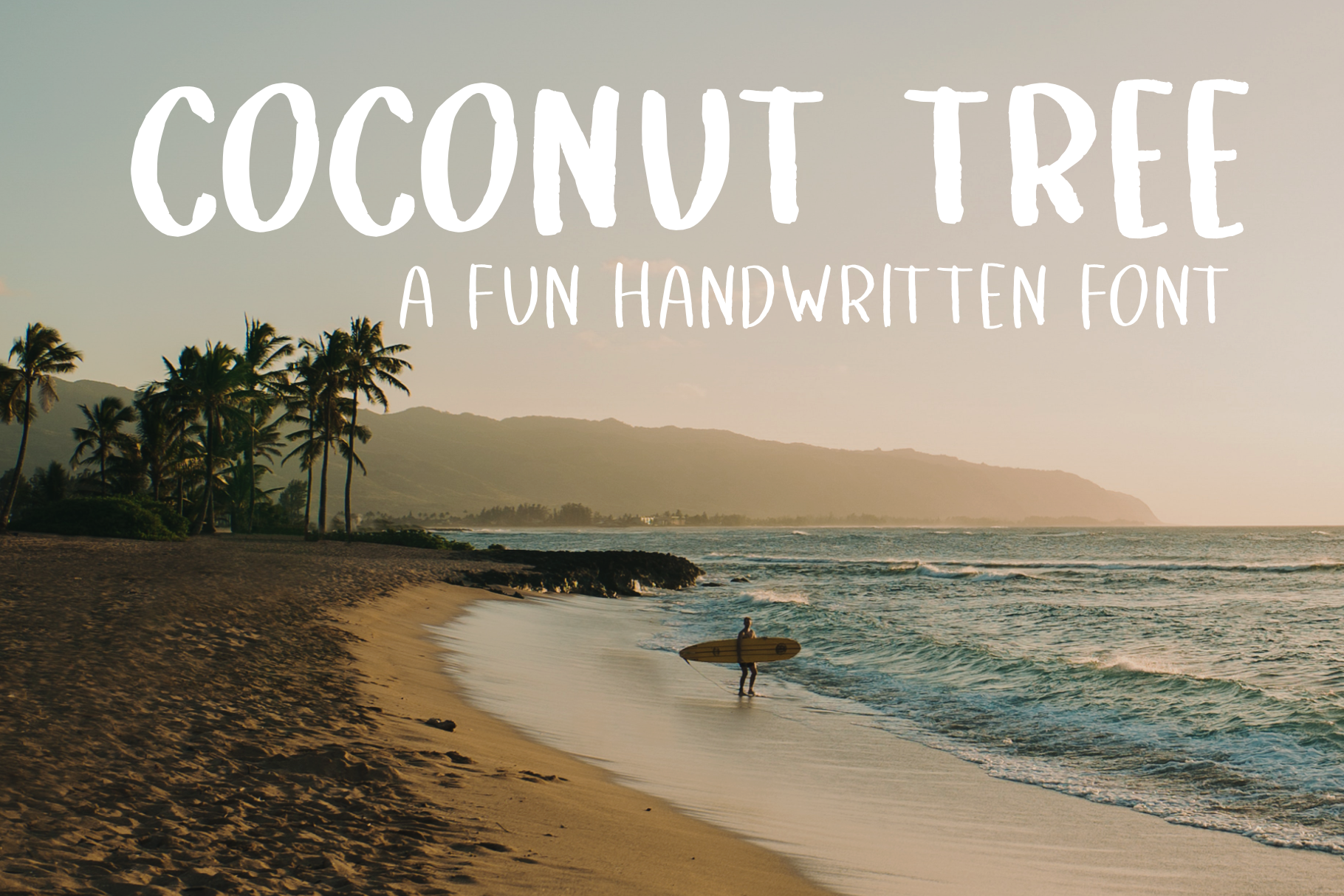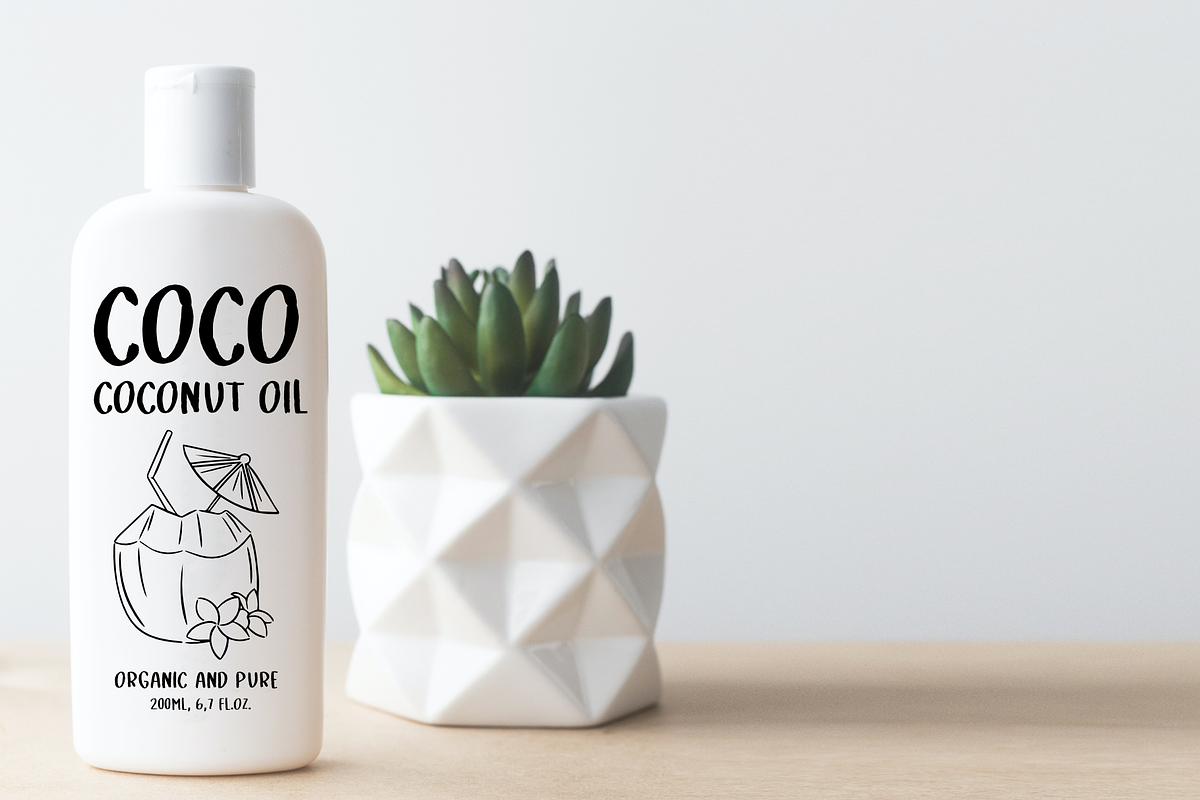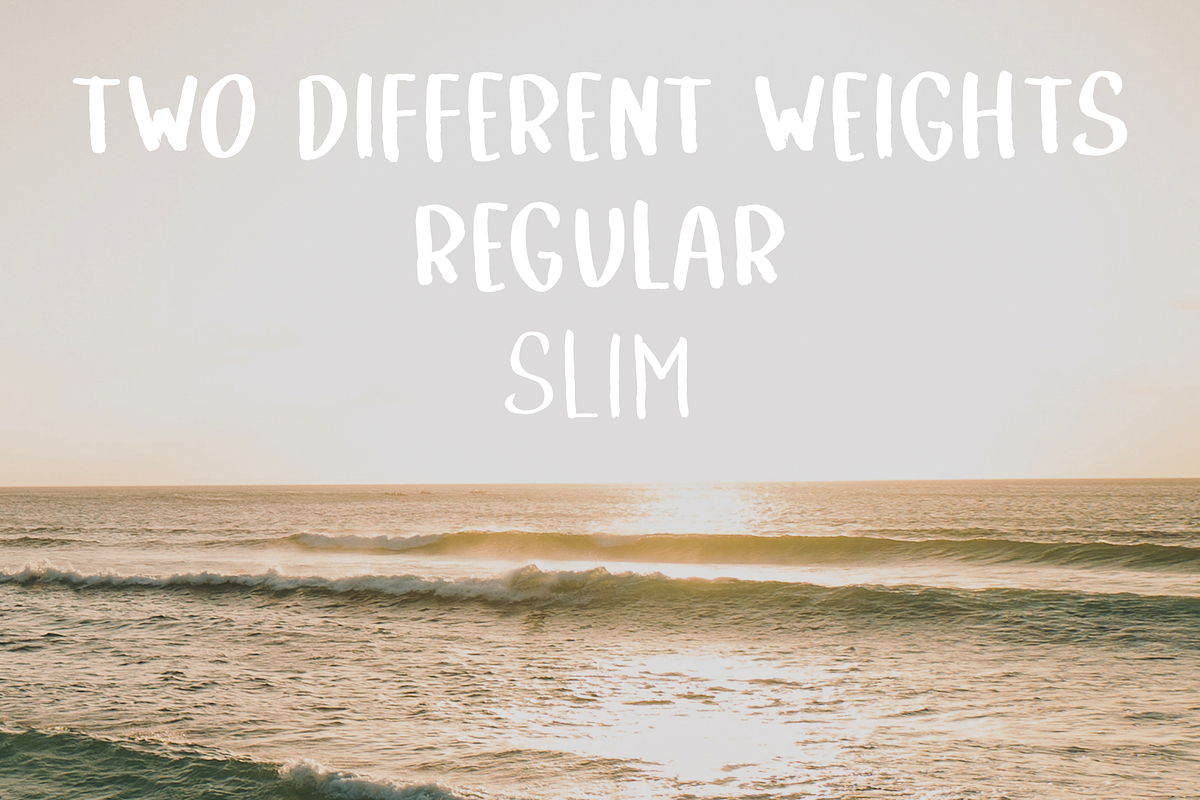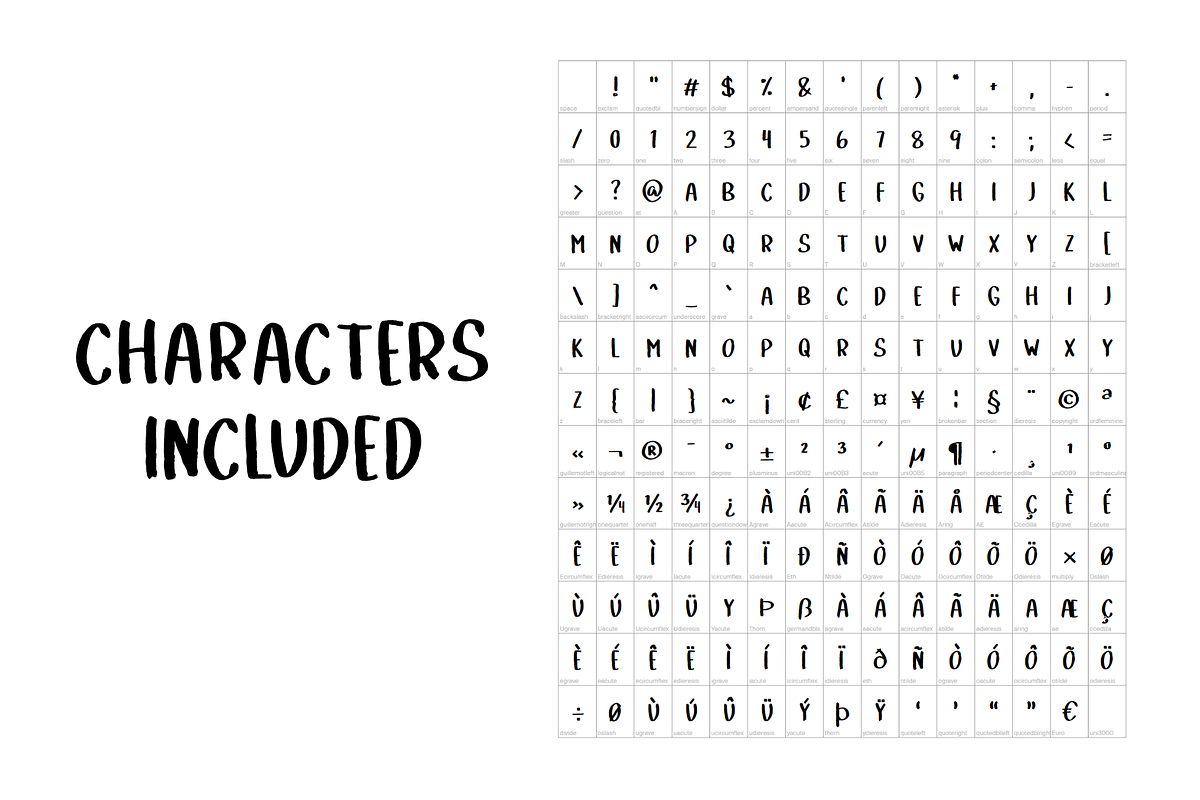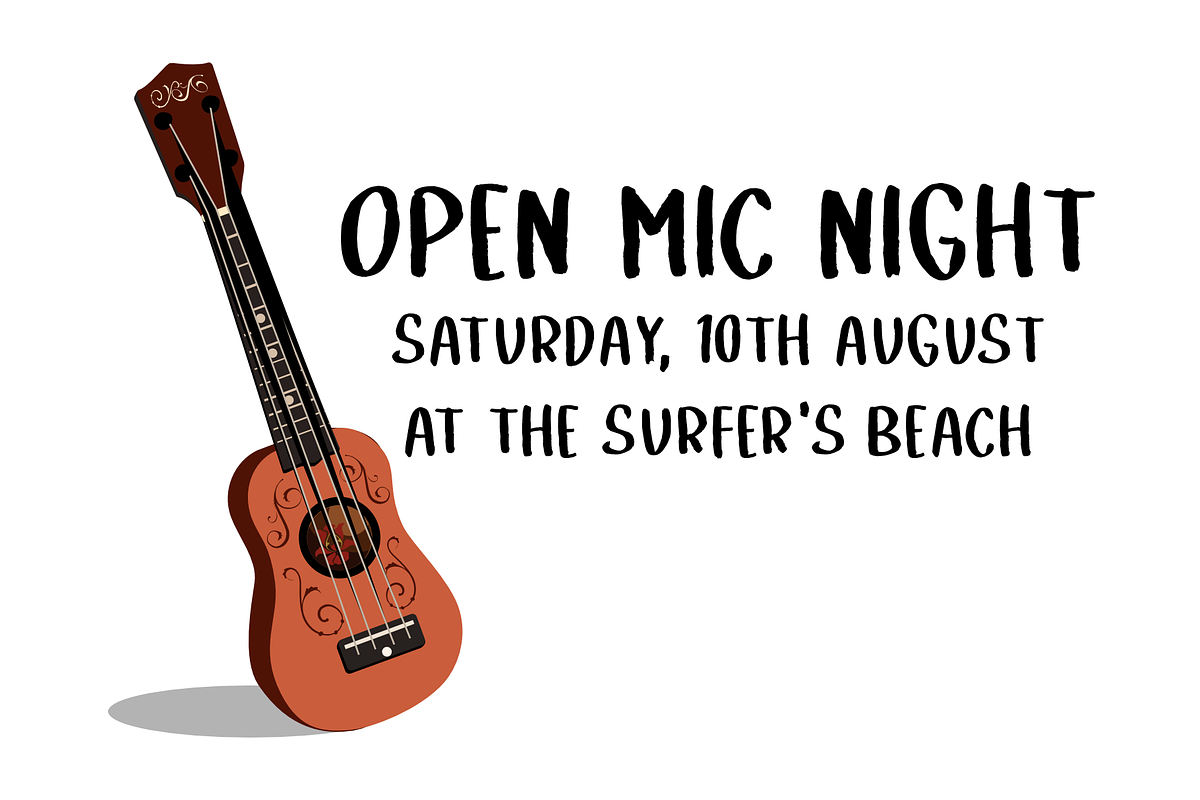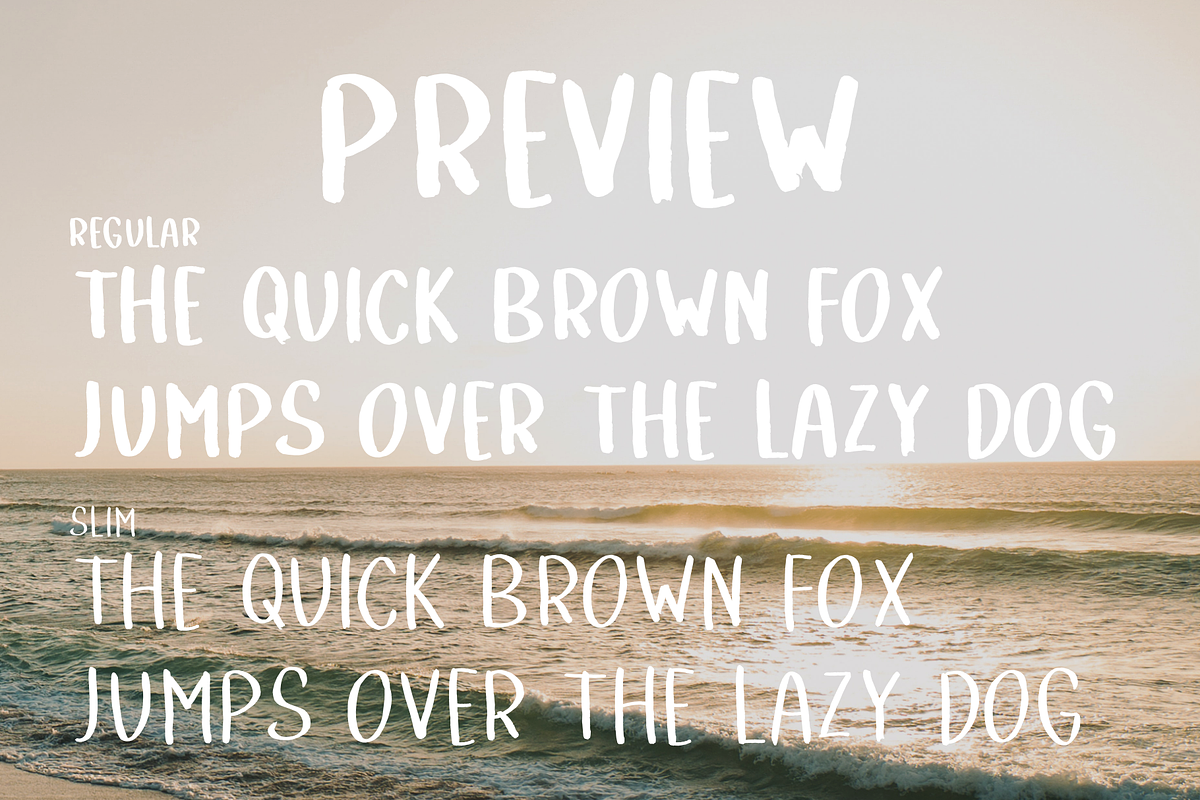
Coconut Tree | a handwritten font
Coconut tree is a fun handwritten font with a casual and organic vibe. Perfect for a summer project or for anything where you'd need a simple beautiful font.
It's designed with usability in mind, and you can write in both uppercase and lowercase with the same result. Multilingual support for European languages is included, for full info on included characters, see the character map.